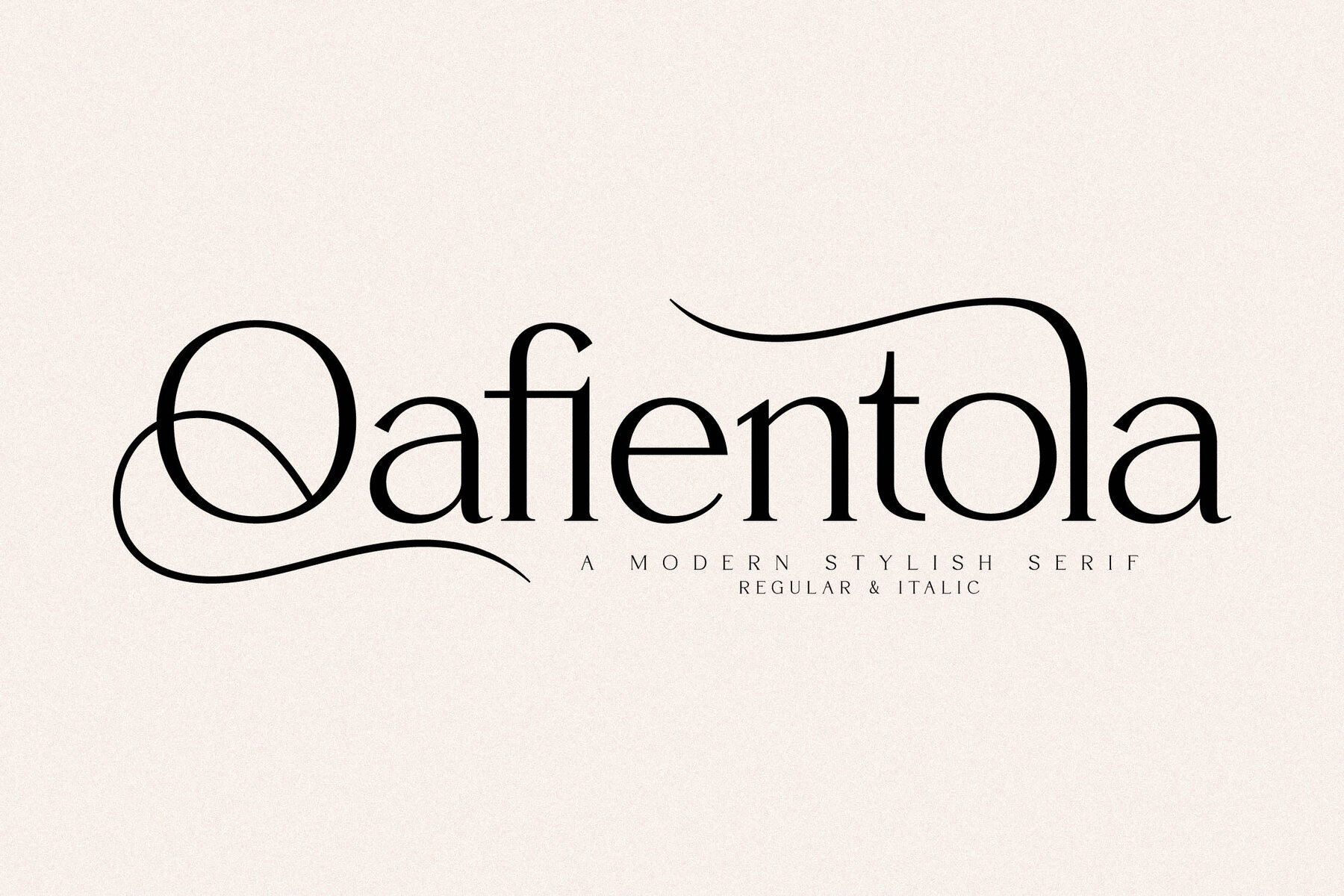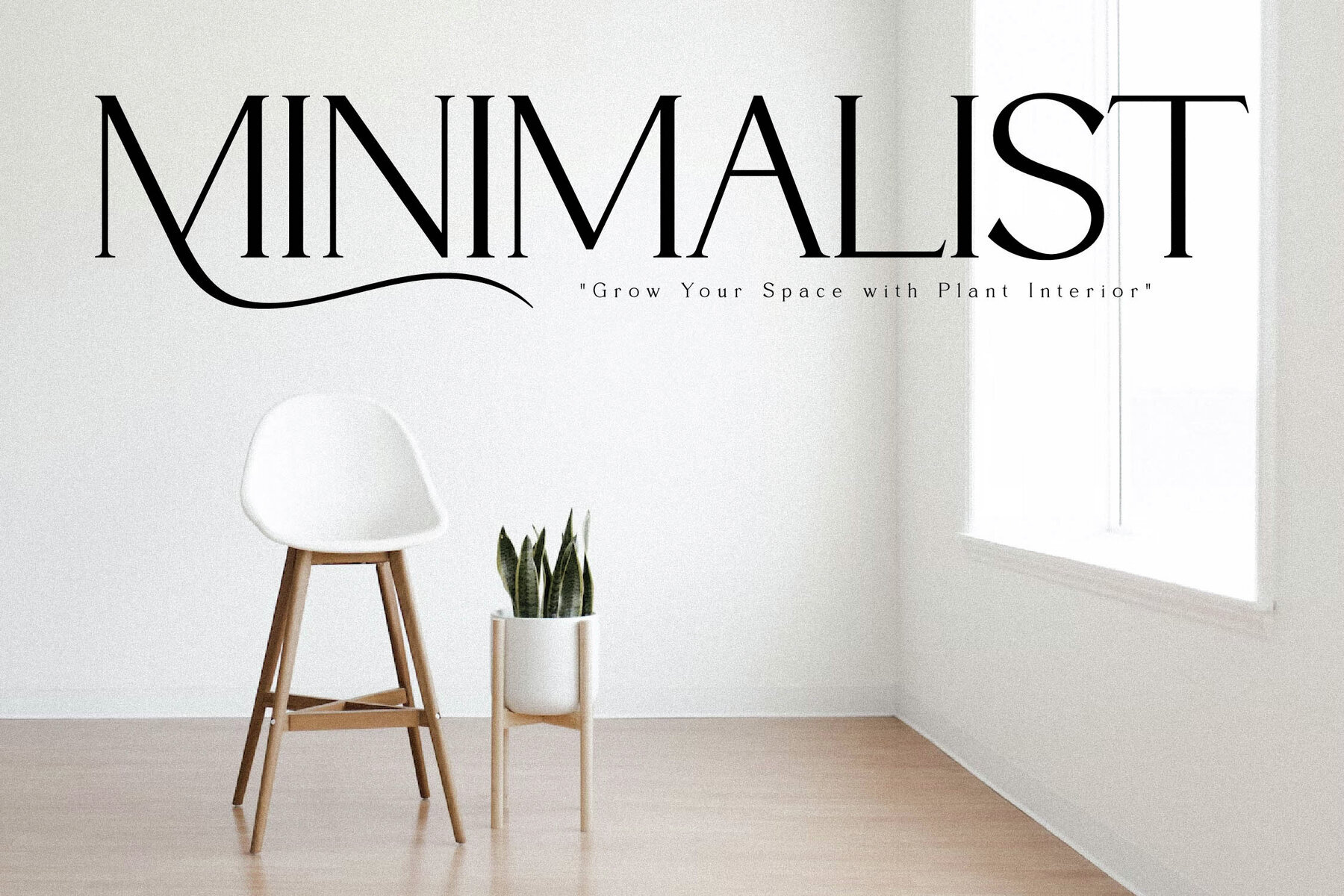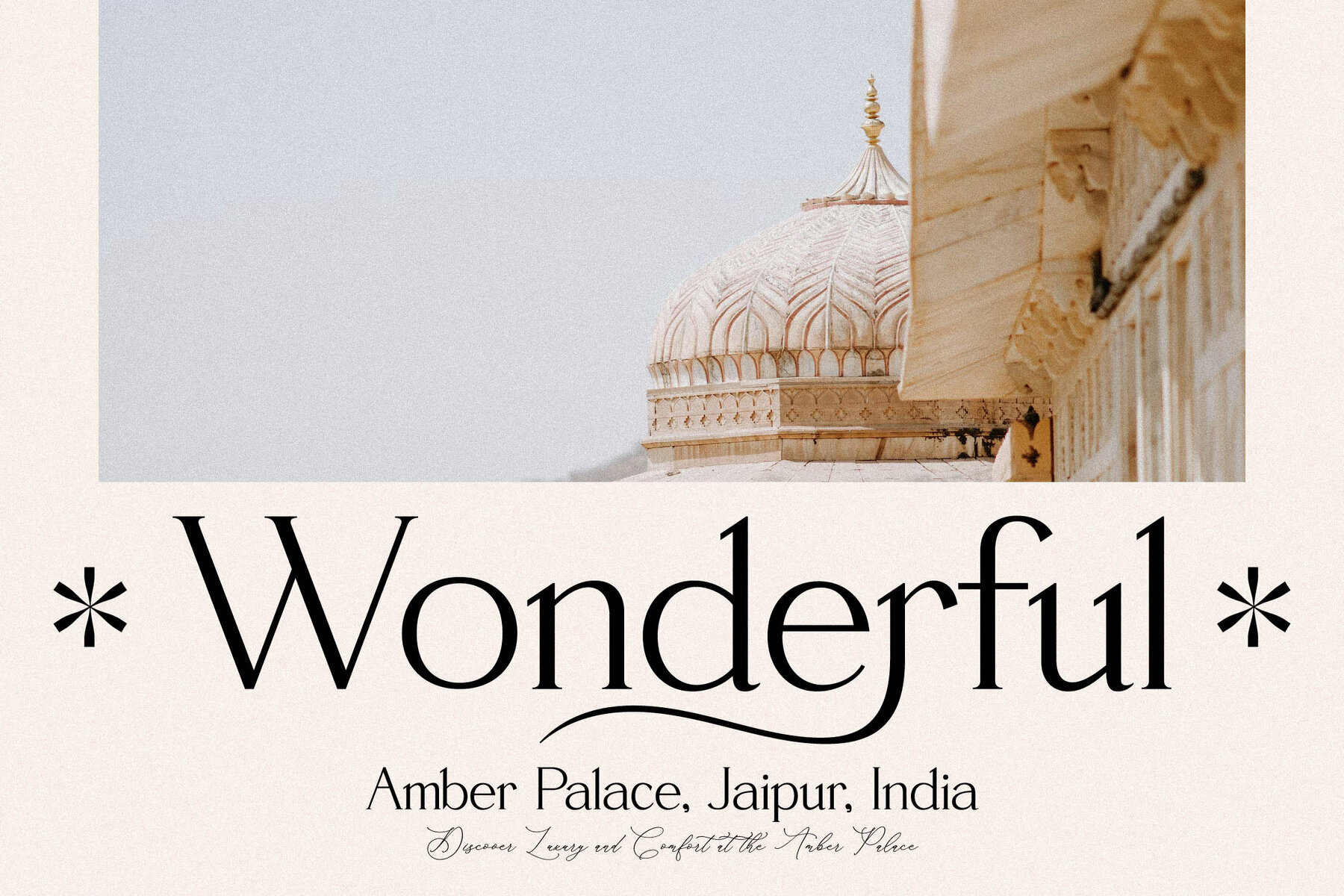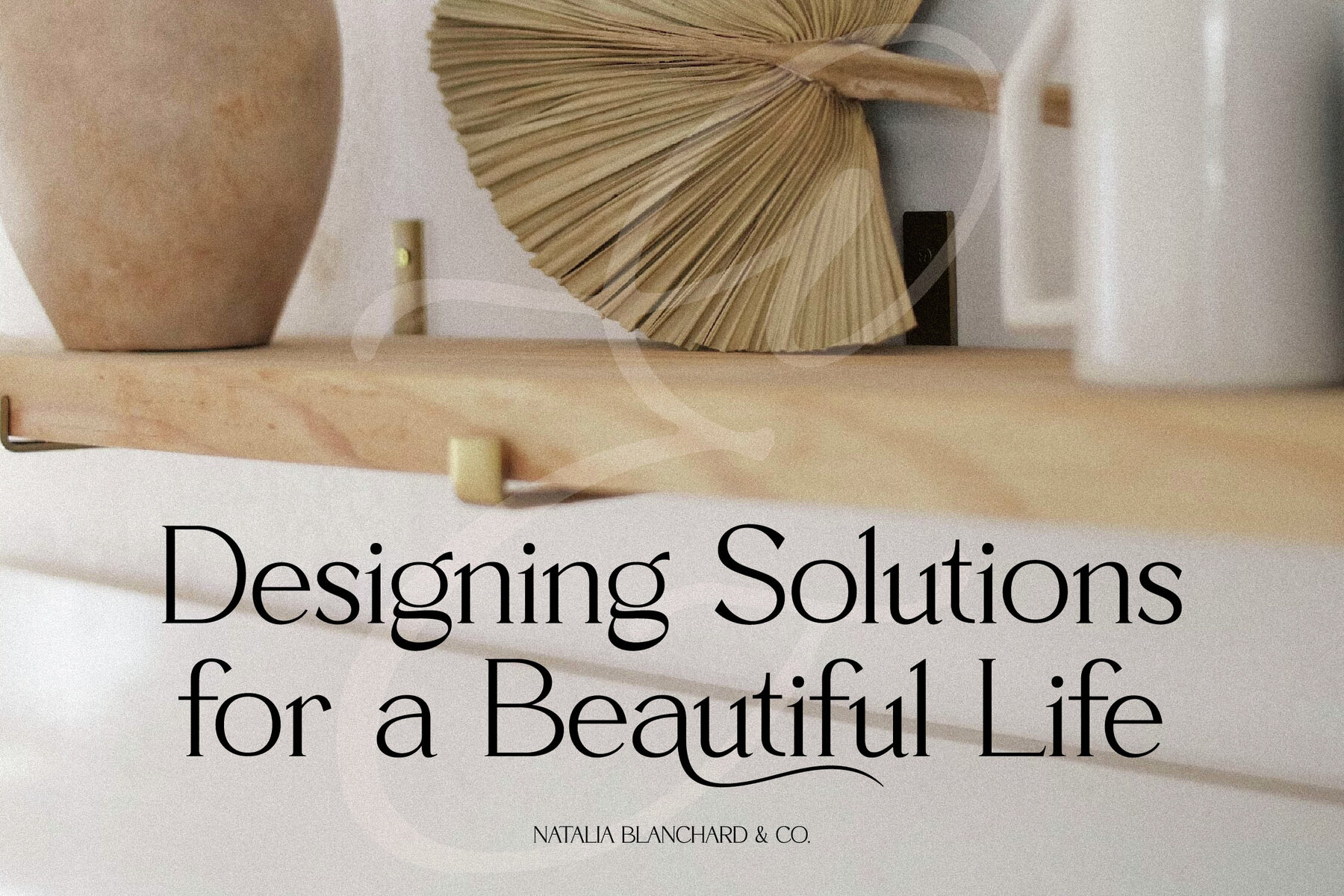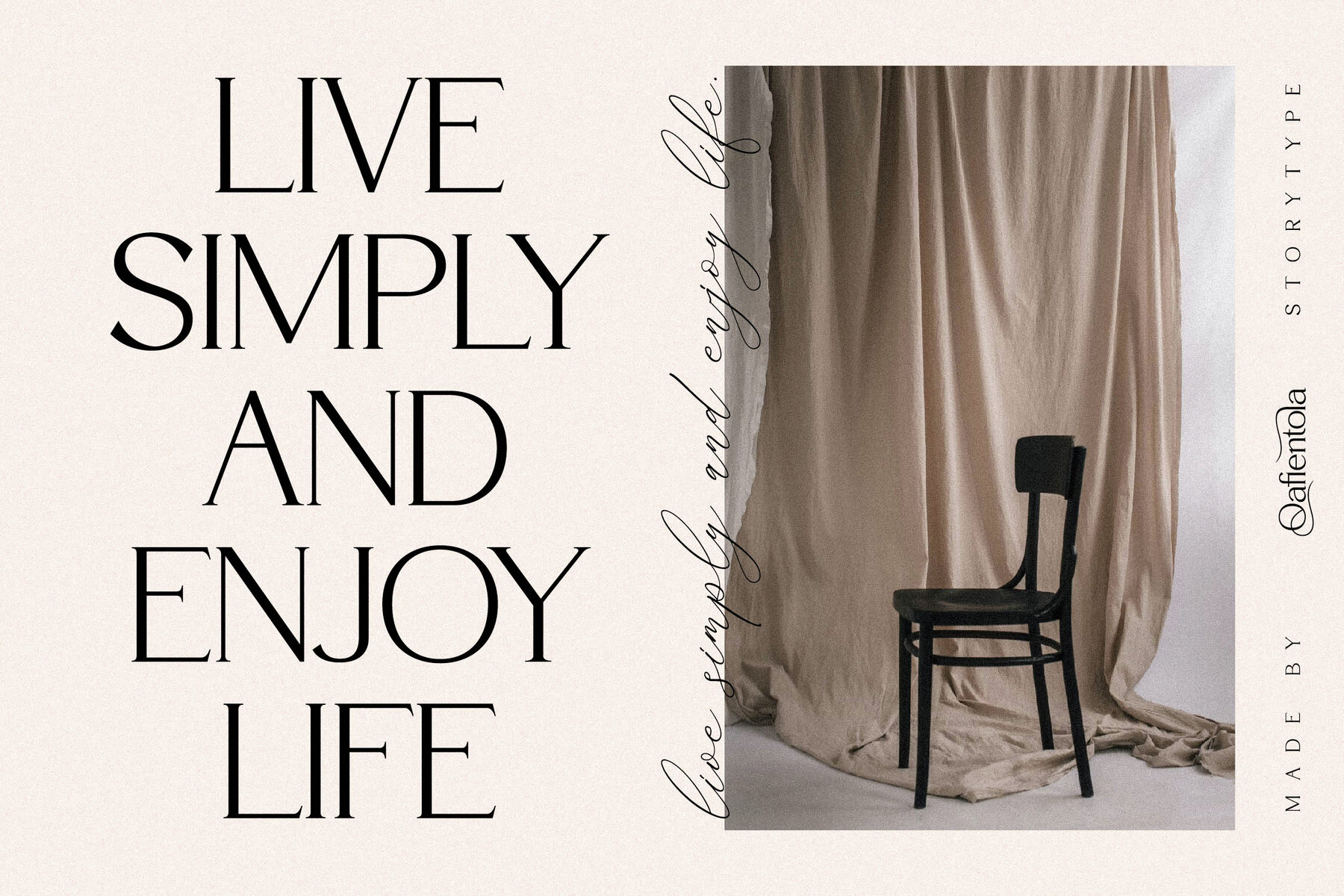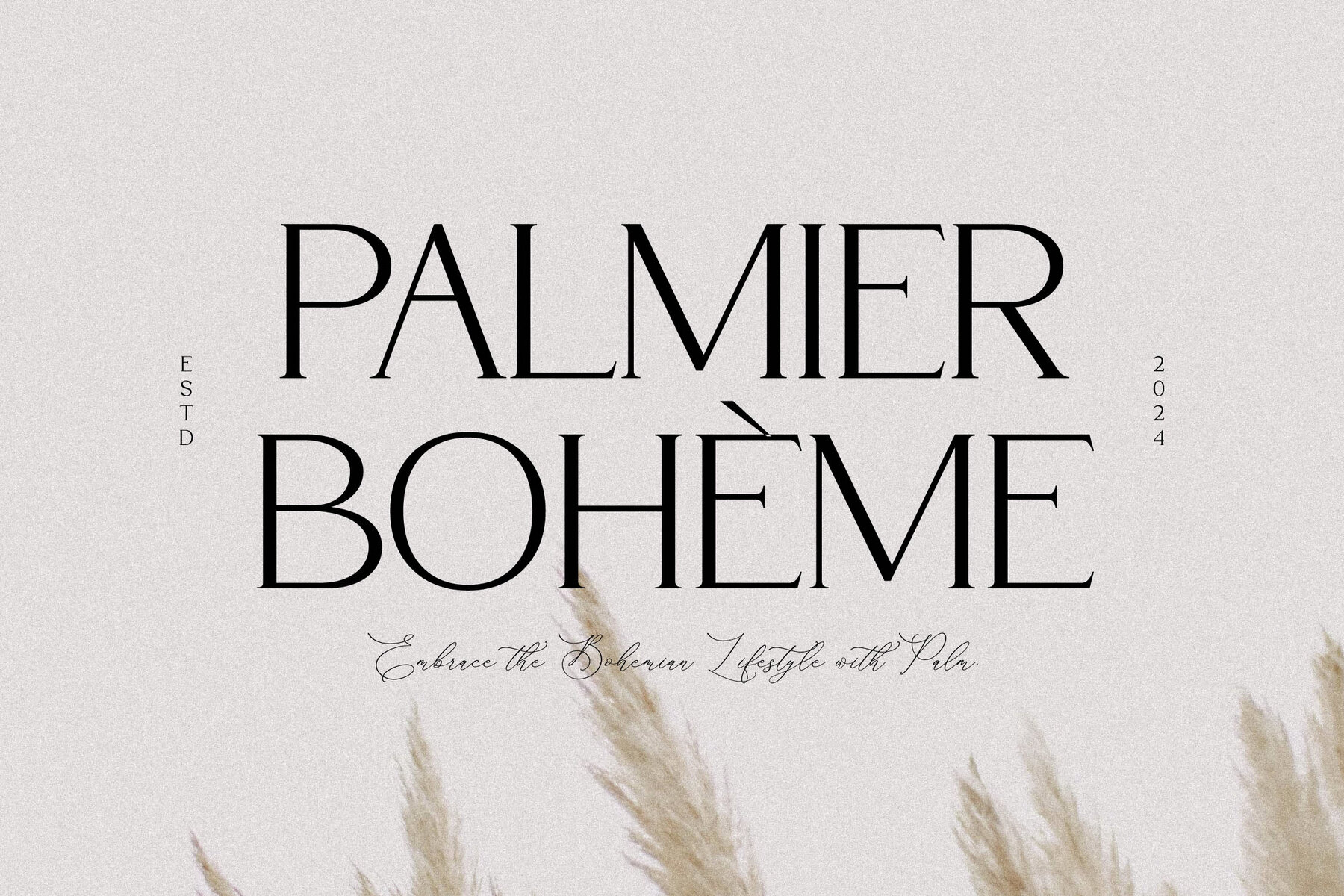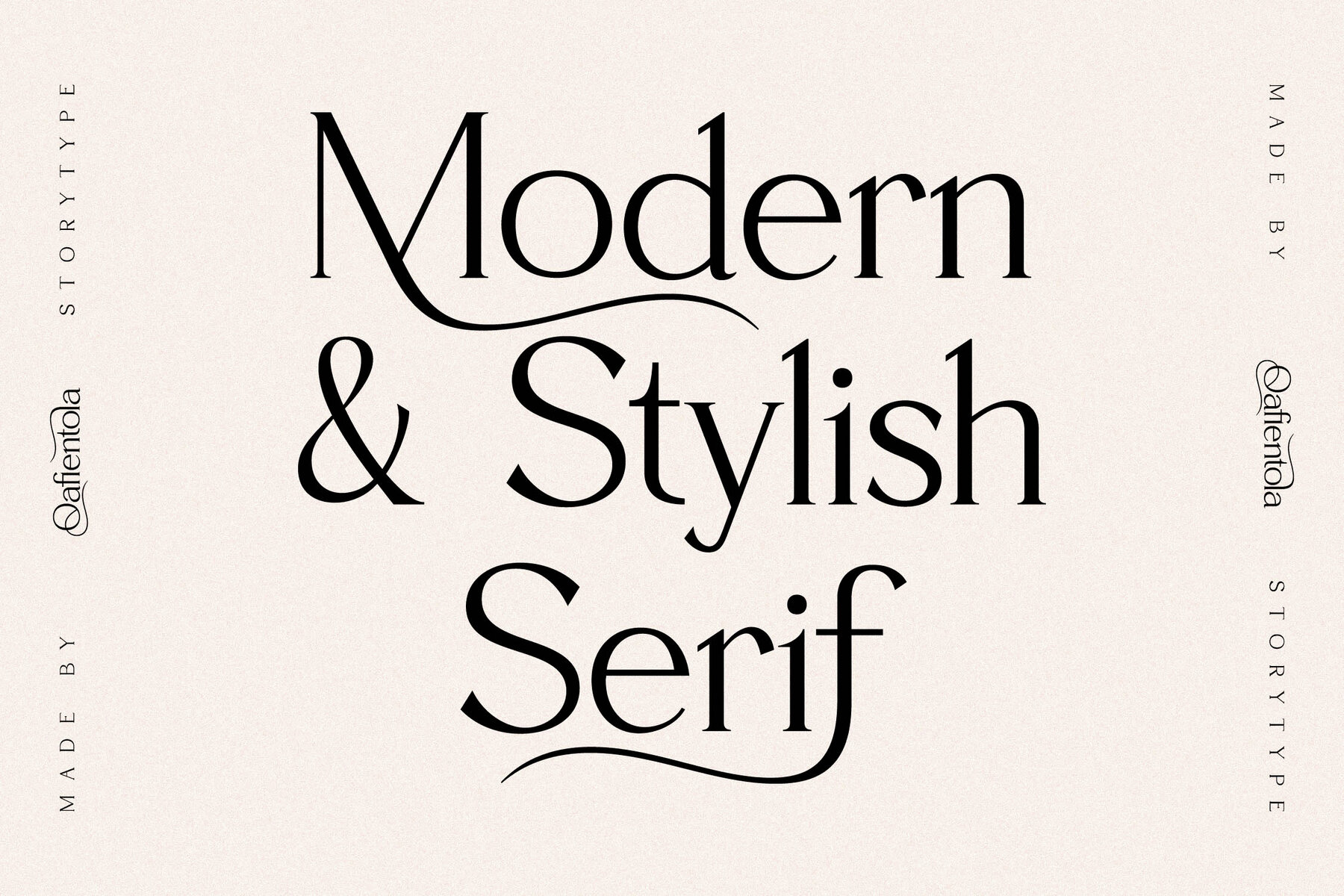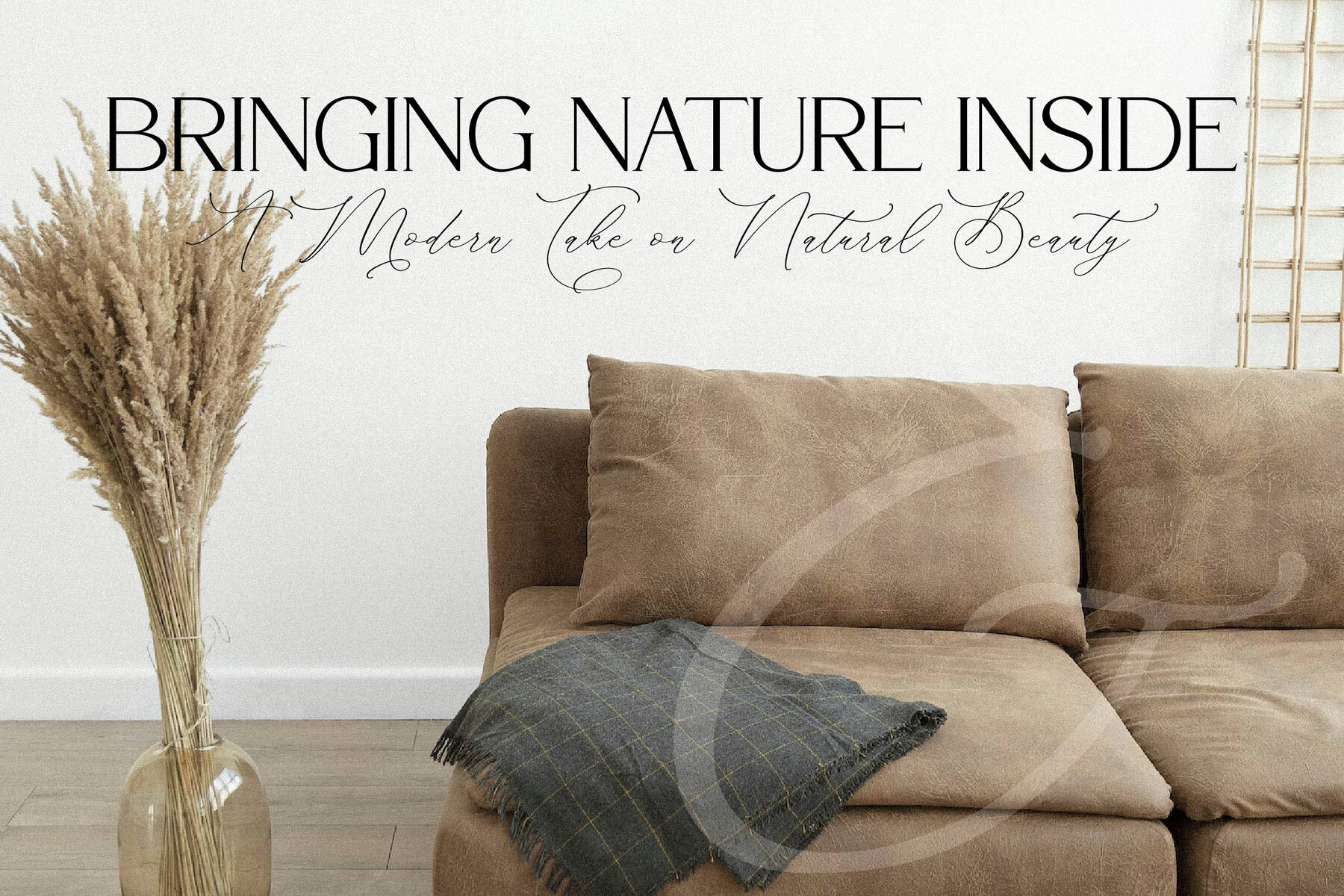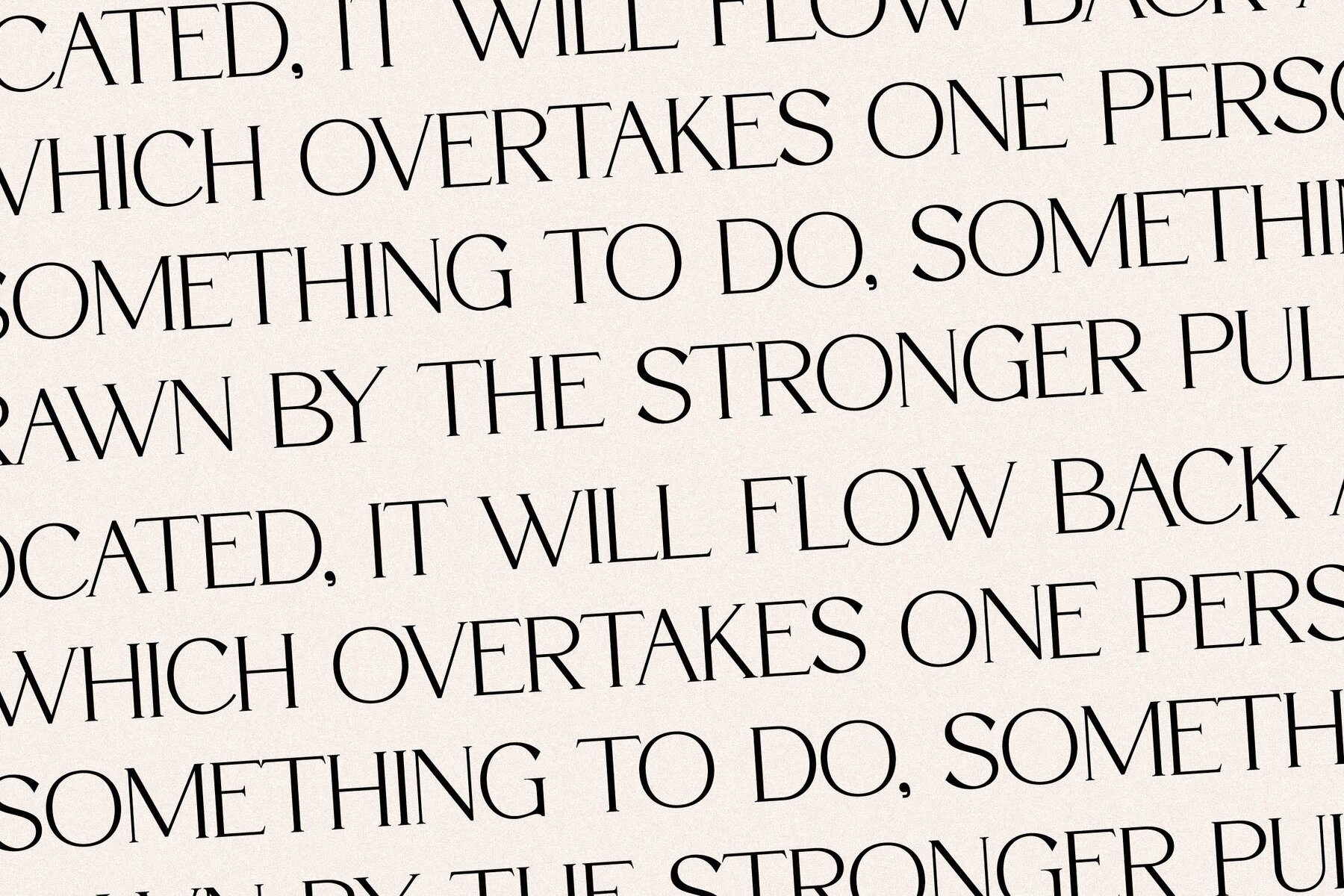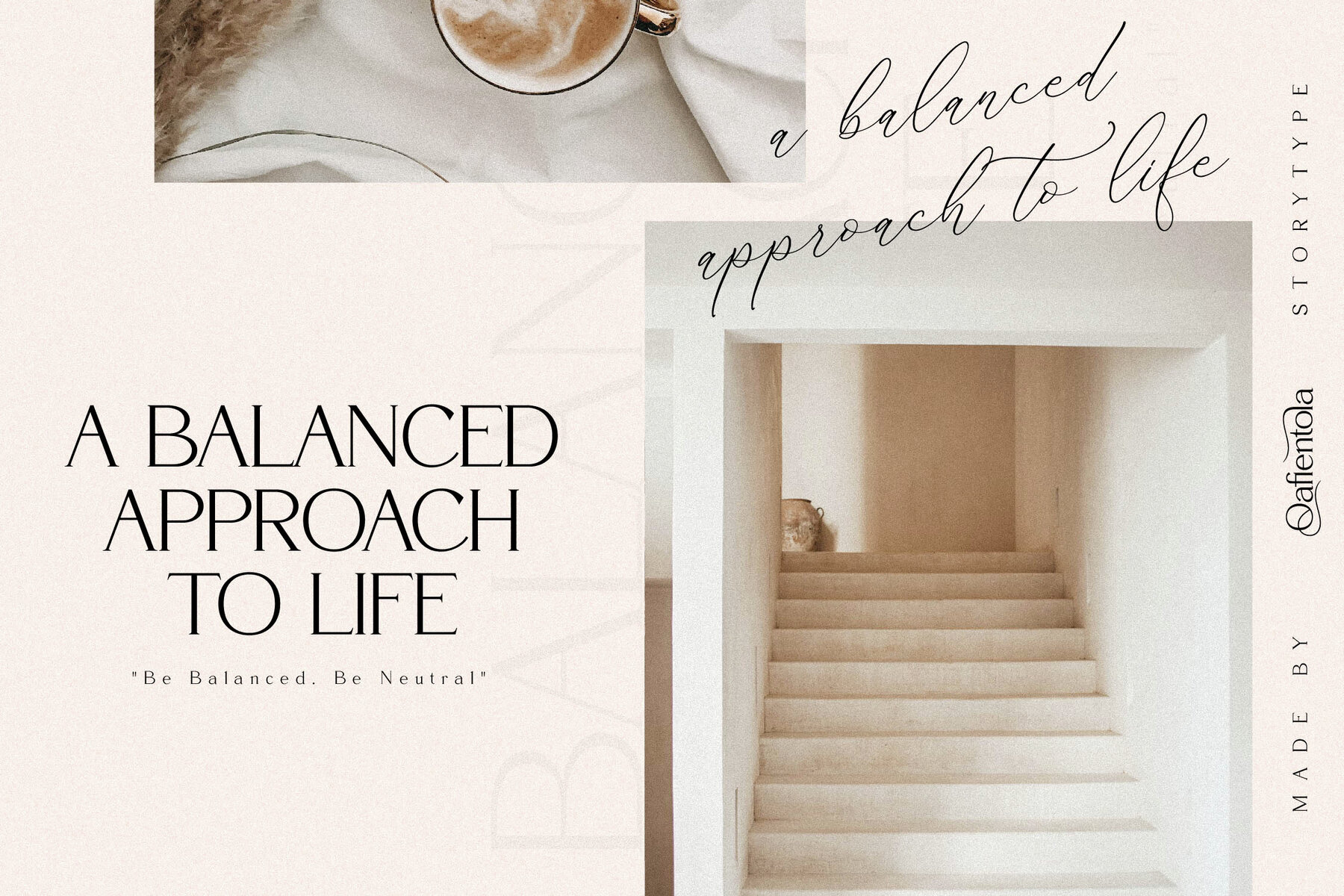
Qafientola Font
Discover the elegance of Qafientola, a serif typeface that marries modernity with classic charm. Its unique style makes it an ideal choice for creating a luxurious logo, designing book and movie titles, or adding a touch of sophistication to fashion brands, magazines, and more. Embrace versatility and style with Qafientola and elevate your projects with its timeless beauty.Introducing Qafientola Typeface